Typography Advent No. 3: 9 Funky Display Fonts for Your Design Toolkit
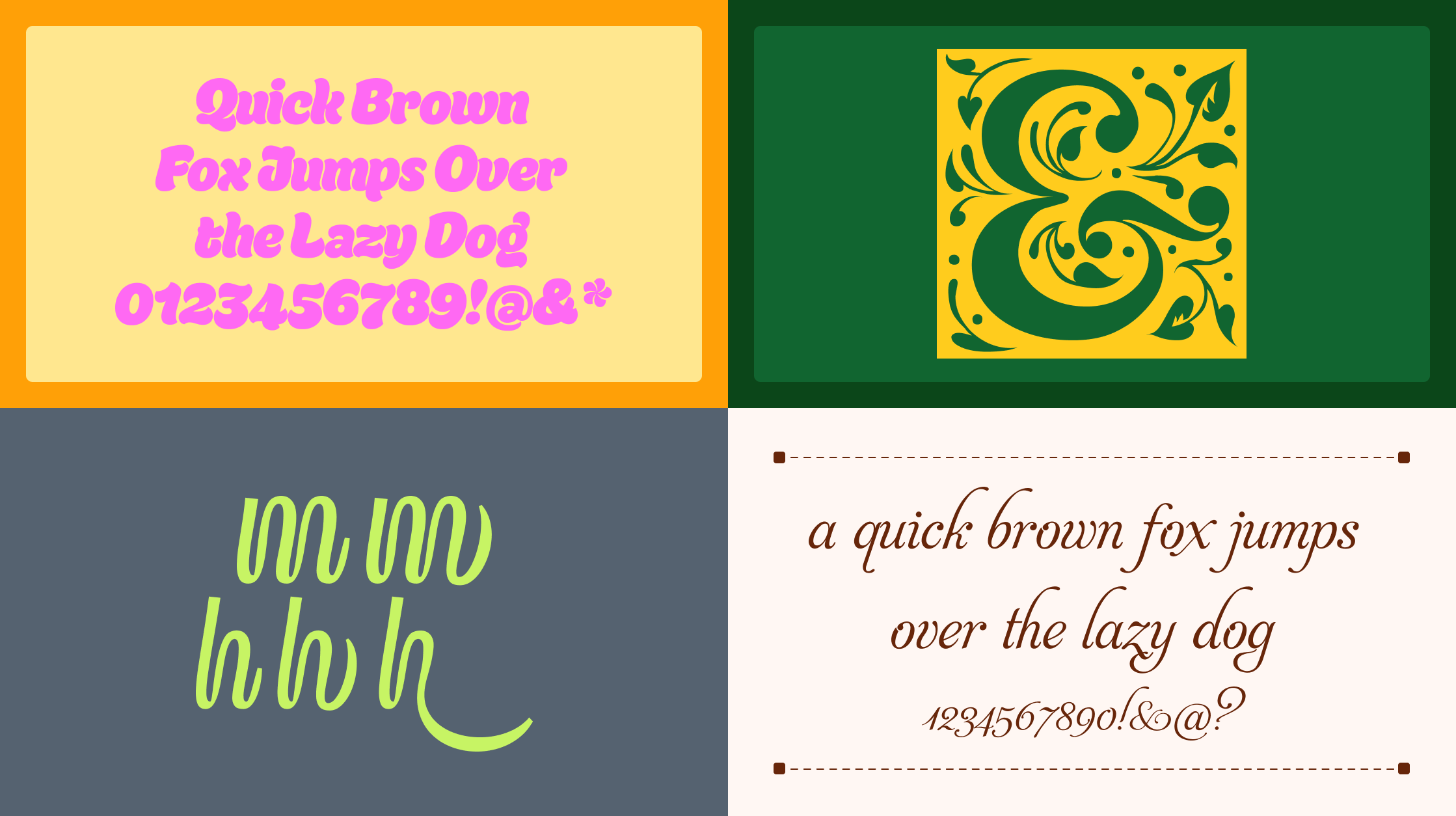
Some fonts stop you mid-scroll. Others quietly earn your trust the more you use them. This roundup has both: nine typefaces spanning blackletter, scripts, serifs, and display styles, each with something genuinely worth your attention. Whether you're working on a brand identity, editorial layout, or a label that needs personality, there's something here for you.
Bulletin Script
HWT Bulletin Script revives a classic 19th-century American wood type tradition, and it does so with full conviction. The flowing, sign-painted letterforms bring mid-century Americana to the table: the casual confidence you'd find on a vintage storefront or a hand-lettered broadside. It's ideal for nostalgic posters, retail branding, and packaging that needs to feel like it has a history. Pair it with a wide condensed sans for contrast, or let it anchor a logo that needs to feel both handmade and designed.
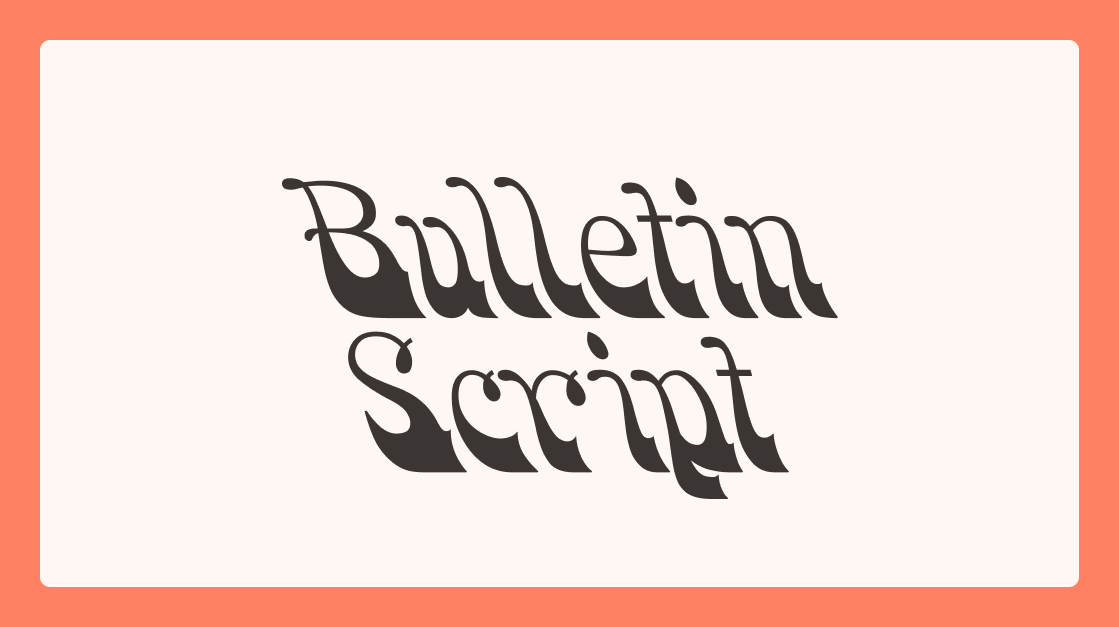
Jacobian Initials
Drop caps aren't just decorative. They're an invitation to read. Jacobian Initials gets that assignment completely. These ornate initial capitals come in framed and unframed styles with four-layer color options, carrying the energy of illuminated manuscripts while staying versatile enough for modern applications. Use them on stationery, food labels, album covers, or anywhere an opening letter should feel like a moment. Pair with a simple, generous body font and let them command the page.
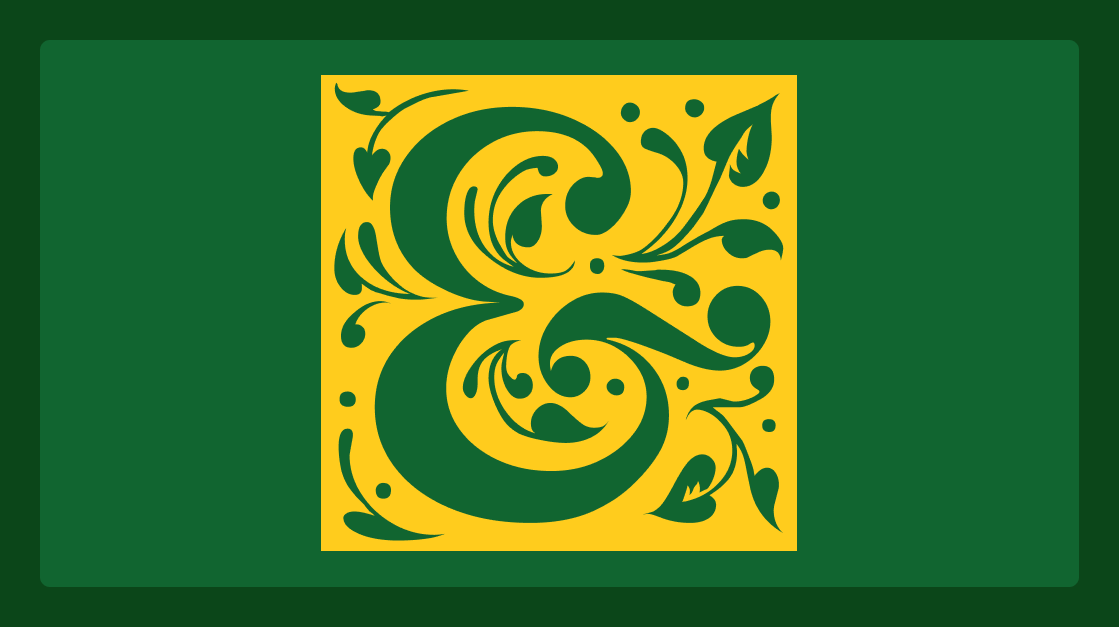
Ginsburg
Ginsburg isn't your usual sans-serif. This modern all-caps display font brings geometric shapes and wavy lines together with a set of alternates that let you tune the energy: restrained or expressive, your call. It has the kind of graphic confidence that translates well to TV title cards, podcast covers, and bold poster work. When the brief calls for type that looks designed rather than just chosen, Ginsburg delivers.
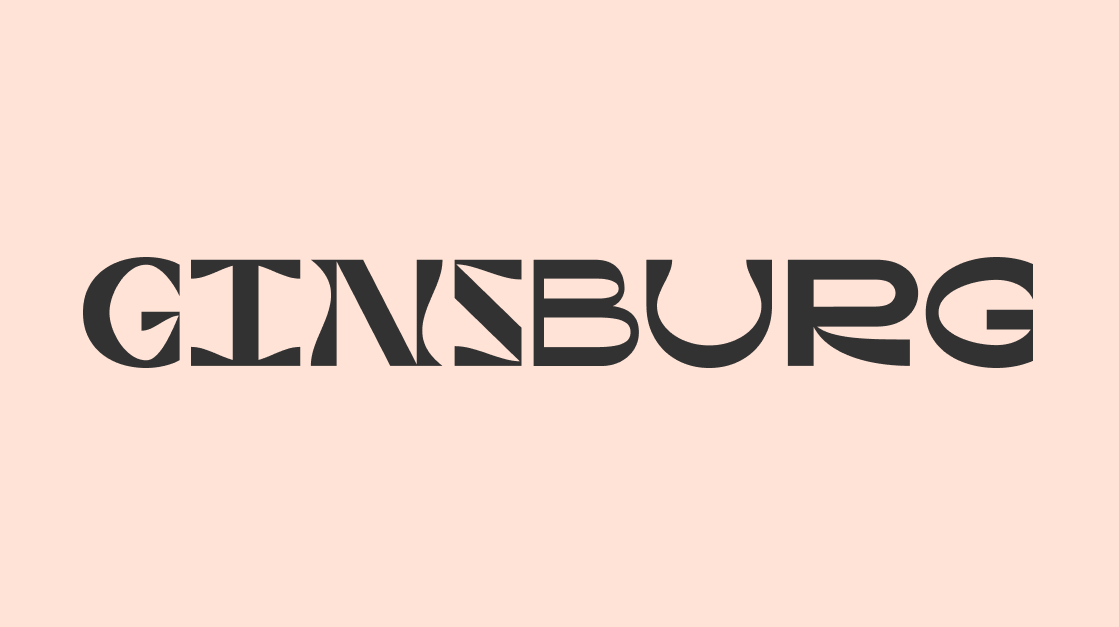
Country Blues Script
Country Blues Script is rhythm you can see. Inspired by vintage vinyl covers, retro sports culture, and rock 'n' roll, this script brings lively energy through alternate capitals and unique lowercase forms that keep every word feeling alive. The result is a typeface that works beautifully on album art, badges, and textured retro branding. Anywhere the design needs to feel like it came up through a subculture rather than off a shelf.
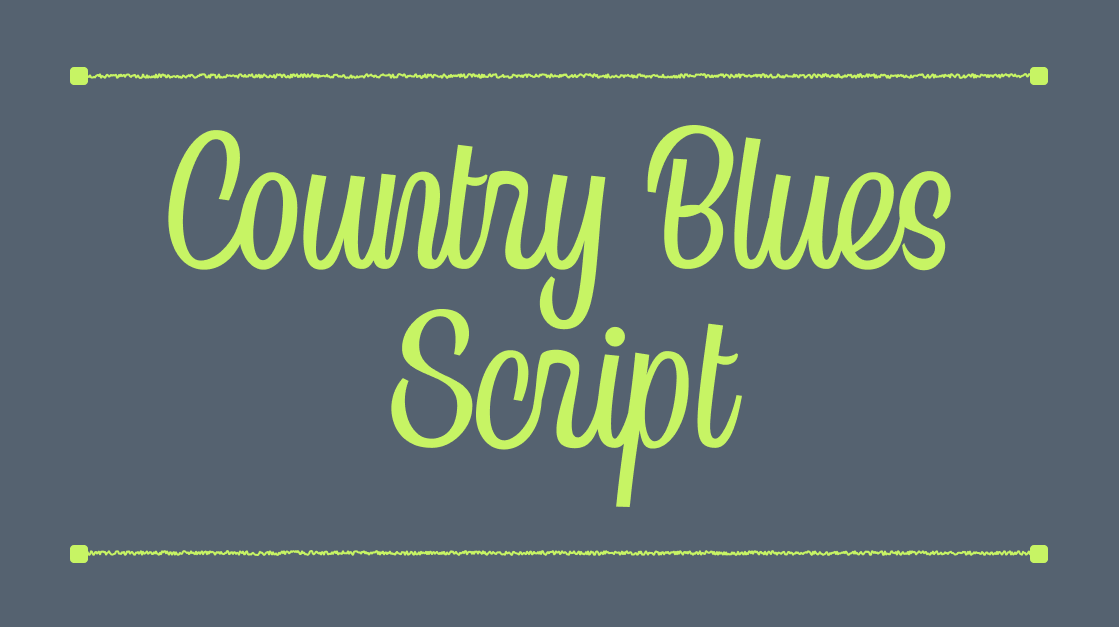
Goudy Text
There's a reason blackletter never fully goes away. Goudy Text taps into that centuries-old tradition with a scholarly weight that feels both historical and surprisingly fresh. The letterforms have real structure to them: angular, deliberate, confident. Use it for headlines that need gravitas, or as a contrast element against a clean sans-serif. It's the kind of typeface that makes a logotype feel like it was earned.
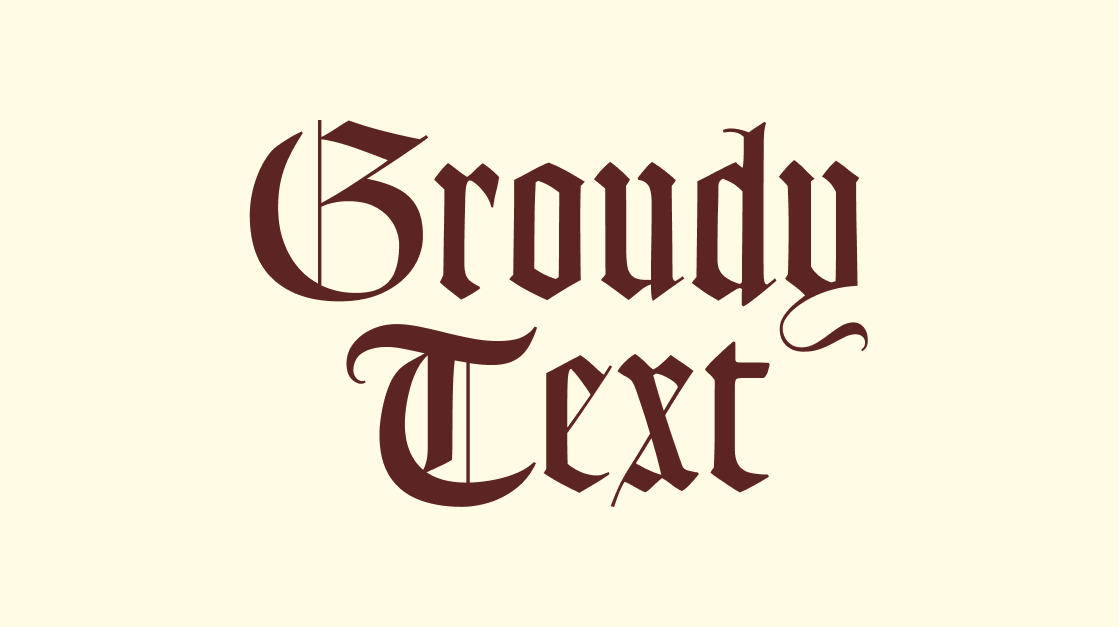
Glowworm
Soft, rounded, and full of life. Glowworm earns its name. Inspired by bubble and worm forms, its curves feel genuinely playful without tipping into childish. It's a natural fit for children's books, quirky branding, or any project where the typography needs to say approachable before a single word is read. Display sizes are where it really opens up: the rounded strokes catch the eye and the friendly personality lands immediately.
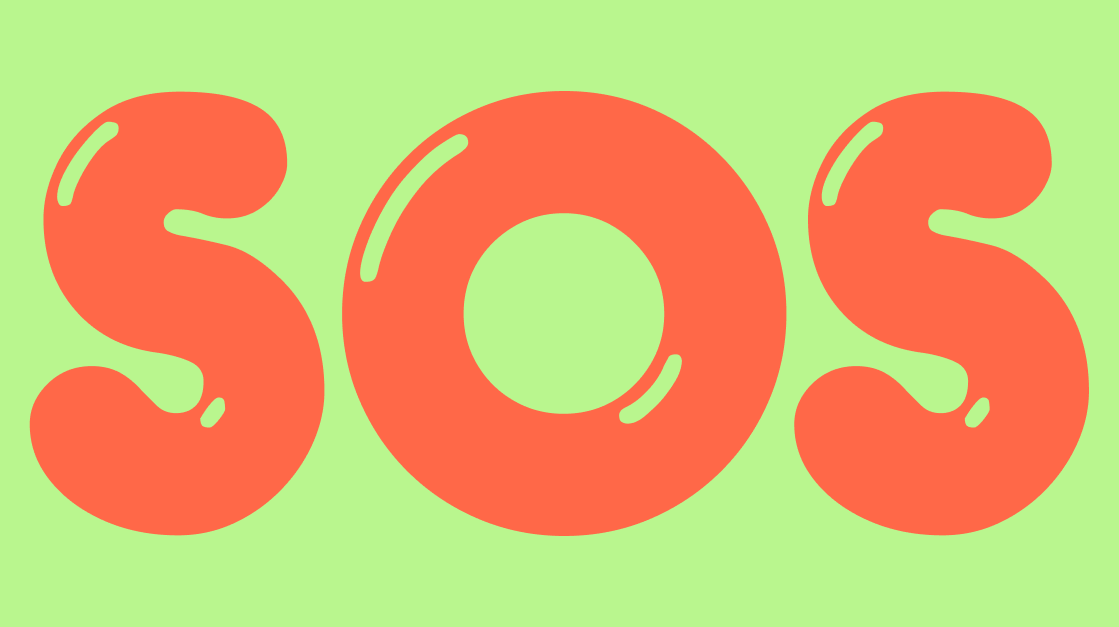
Aphrodite
Aphrodite is a script that knows exactly how elegant it is, and earns every bit of it. The flowing curves and classic proportions carry the sophistication of high-end stationery and luxury packaging, without ever feeling overdone. It's the kind of typeface that makes a headline feel like it was written, not set. Reach for it when the brief includes words like refined, timeless, or elevated.
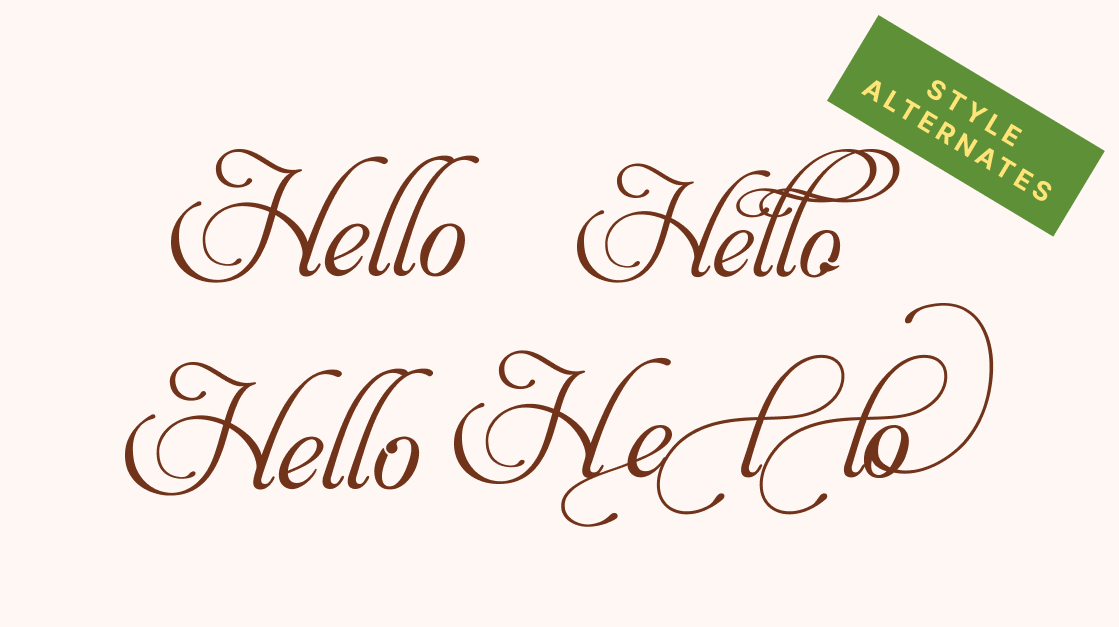
Ekamai
Ekamai brings warmth and charm in equal measure. This friendly, plump script balances soft, playful curves with enough polish to work across real design contexts: food packaging, magazine headlines, logo wordmarks, and branding that wants to feel handcrafted without looking rough. It sits in that rare space between casual and considered, which makes it incredibly versatile. If your project needs a handwriting-style font that still feels professional, Ekamai is the one to reach for.
Acid Green
Acid Green doesn't ease you in. It arrives. Bold geometric shapes collide with psychedelic energy to create a display font that commands attention before the reader has processed a single word. It's built for projects that refuse to be ignored: experimental graphics, statement posters, and modern branding where subtlety was never part of the brief. If your design needs a jolt, this is it.
These nine fonts span centuries of typographic tradition and dozens of potential use cases, but what they share is a sense of intention. Each one was made by someone who cared about how letters feel, not just how they function.